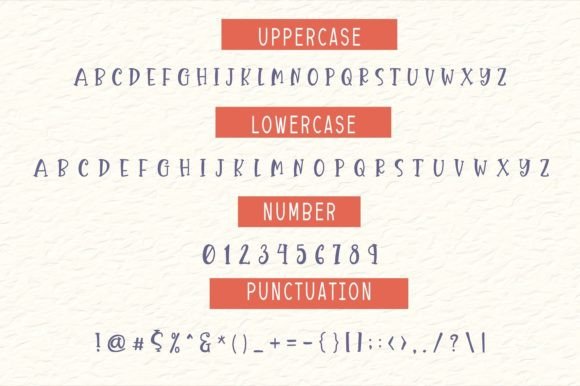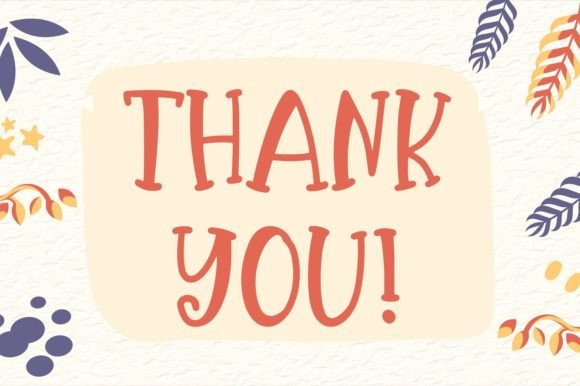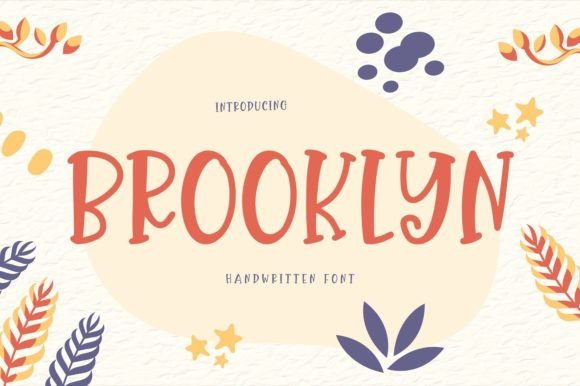
Discover the Charm of Brooklyn Font: A Cute Serif Font for Your Design Projects
Are you looking for a font that can add a touch of playfulness and authenticity to your design projects? Look no further than Brooklyn Font, a cute serif font that is perfect for a wide range of creative endeavors. With its light and airy characters, Brooklyn Font is an excellent choice for designers and crafters who want to add a personal touch to their work.
The Characteristics of Brooklyn Font
Brooklyn Font is a serif font, which means it features small lines or flourishes at the ends of its characters. This gives it a classic and timeless look that is perfect for designs that require a touch of sophistication. However, what sets Brooklyn Font apart from other serif fonts is its light and airy feel. The characters are slender and delicate, which makes them easy to read and gives them a charming, whimsical quality.
The Benefits of Using Brooklyn Font
So, why should you choose Brooklyn Font for your design projects? For starters, its playfulness and authenticity make it perfect for designs that require a personal touch. Whether you’re creating a blog post, logo, or branding materials, Brooklyn Font can help you connect with your audience and add a touch of warmth to your design. Additionally, its light and airy characters make it easy to read, even at small sizes, which makes it perfect for body text and other applications where readability is key.
Uses for Brooklyn Font
Brooklyn Font is an incredibly versatile font that can be used for a wide range of design projects. Here are just a few ideas to get you started:
- Blog Posts: Add a personal touch to your blog posts with Brooklyn Font. Its readability and charm make it perfect for body text, headings, and titles.
- Logos and Branding: Use Brooklyn Font to create a unique and memorable logo or branding materials. Its playfulness and authenticity make it perfect for businesses that want to connect with their customers on a personal level.
- Ads and Invitations: Brooklyn Font is perfect for ads and invitations that require a touch of whimsy and charm. Use it to create eye-catching headlines and body text that will grab your audience’s attention.
- Greeting Cards and Planners: Add a personal touch to your greeting cards and planners with Brooklyn Font. Its light and airy characters make it perfect for creating beautiful and functional designs.
- Photo Albums and Decorations: Use Brooklyn Font to add a touch of personality to your photo albums and decorations. Its playfulness and charm make it perfect for creating unique and eye-catching designs.
Tips for Using Brooklyn Font
Here are a few tips for getting the most out of Brooklyn Font:
- Experiment with Sizes: Brooklyn Font is perfect for designs that require a range of font sizes. Experiment with different sizes to create visual interest and hierarchy in your design.
- Pair it with Other Fonts: Brooklyn Font pairs well with a range of other fonts, including sans-serif fonts and script fonts. Experiment with different pairings to create a unique and eye-catching design.
- Use it for Headings and Titles: Brooklyn Font is perfect for headings and titles, where its playfulness and charm can really shine. Use it to create eye-catching headlines and titles that will grab your audience’s attention.
Brooklyn Font is a cute serif font that is perfect for designers and crafters who want to add a touch of playfulness and authenticity to their design projects. With its light and airy characters, Brooklyn Font is an excellent choice for a wide range of creative endeavors, from blog posts and logos to ads and invitations. So why not give it a try and see the results for yourself?